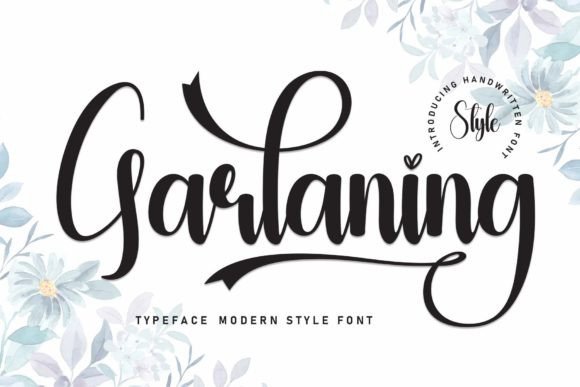
Introducing Garlaning Font, the ultimate choice for unleashing your creativity this Halloween season! Crafted with love and precision by the talented Roronoa Zoro.S.P.D, this script font is a timeless masterpiece that will add a touch of magic to your designs.
Unlock a world of endless possibilities with Garlaning Font. Its exquisite handwritten style breathes life into every letter, allowing your creations to burst with personality and charm. Whether you're designing a spooky logo, captivating branding, or intriguing quotes, this font will ensure your work stands out from the crowd.
Let your imagination run wild as Garlaning Font effortlessly captures the essence of Halloween. Its bewitching curves and enchanting strokes evoke a sense of mystery and excitement, perfectly embodying the spirit of this thrilling holiday. Transform ordinary text into captivating works of art that will bewitch your audience and leave them spellbound.
With Garlaning Font, you have the power to create designs that transcend the ordinary. Its unique and beautiful touch adds depth and character to your work, ensuring an unforgettable visual experience. From eerie posters to haunting invitations, this font will allow you to effortlessly capture the essence of Halloween and leave a lasting impression.
Unleash your inner artist and immerse yourself in the world of Garlaning Font. Its versatility knows no bounds, making it the perfect choice for both digital and print designs. Whether you're a seasoned professional or just starting your design journey, this font will elevate your work to new heights and ignite your creativity.
Indulge in the magic of Garlaning Font and watch as your designs come alive. Its captivating allure will captivate your audience, drawing them into a world of spooky delights. Don't settle for ordinary fonts when you can have the best font to use for Halloween. Embrace the power of Garlaning Font and let your creativity soar.